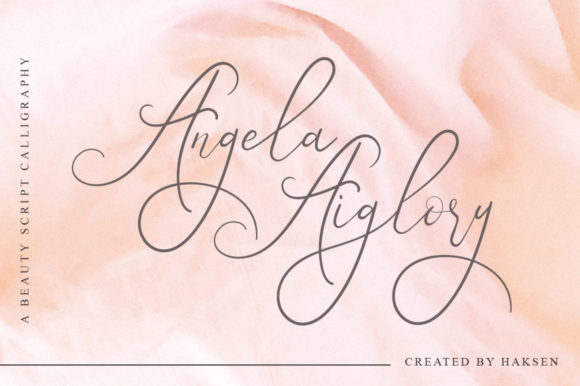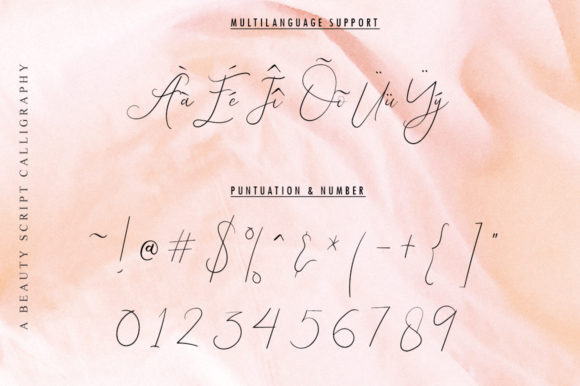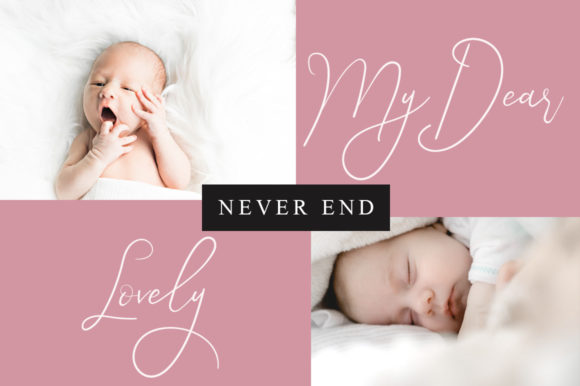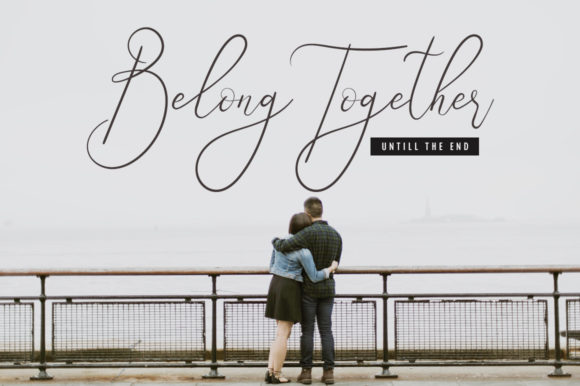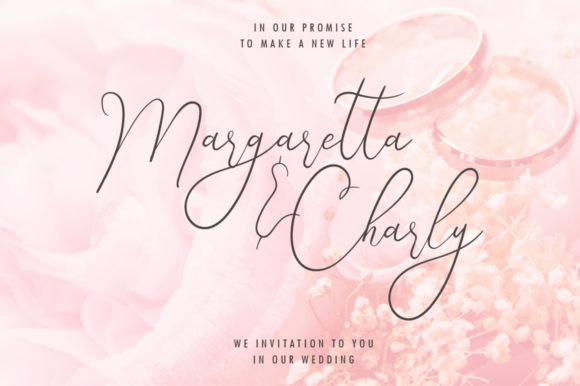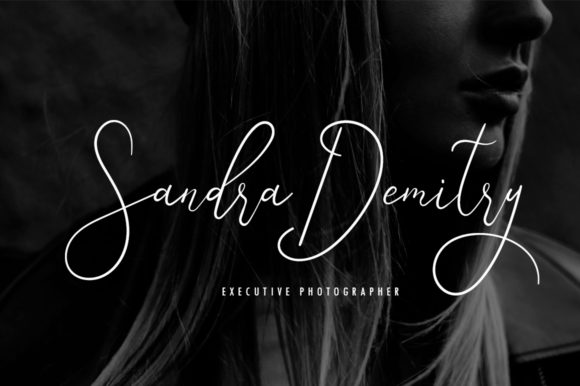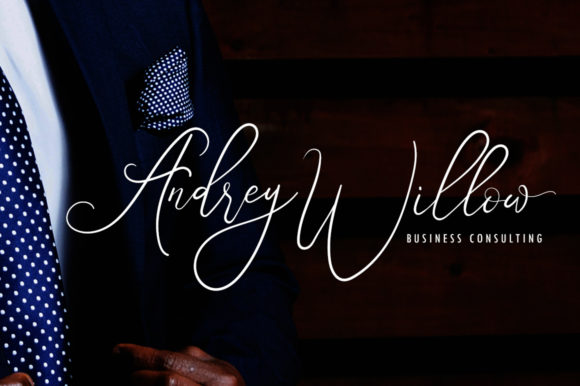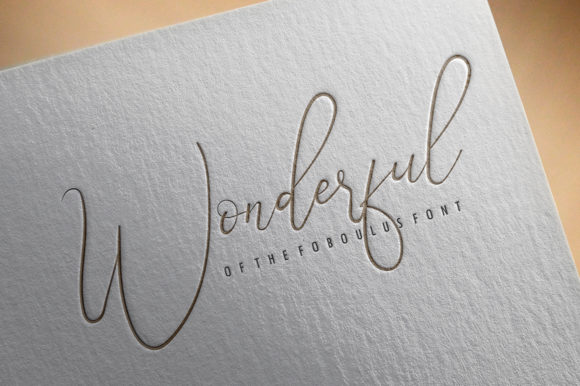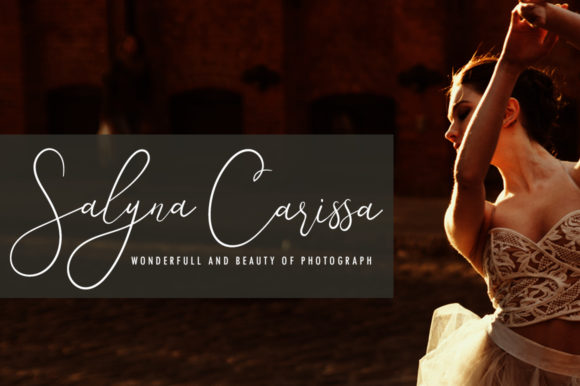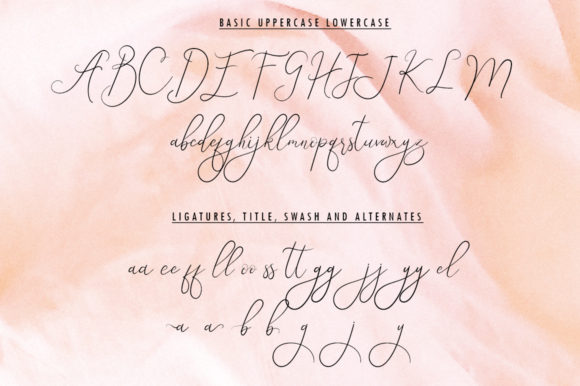
Angela Aiglory Font
About Angela Aiglory Font
The Angela Aiglory is a beautiful calligraphy script. It has a natural writing style and is perfect for greeting cards, branding materials, business cards, quotes, posters, and more!